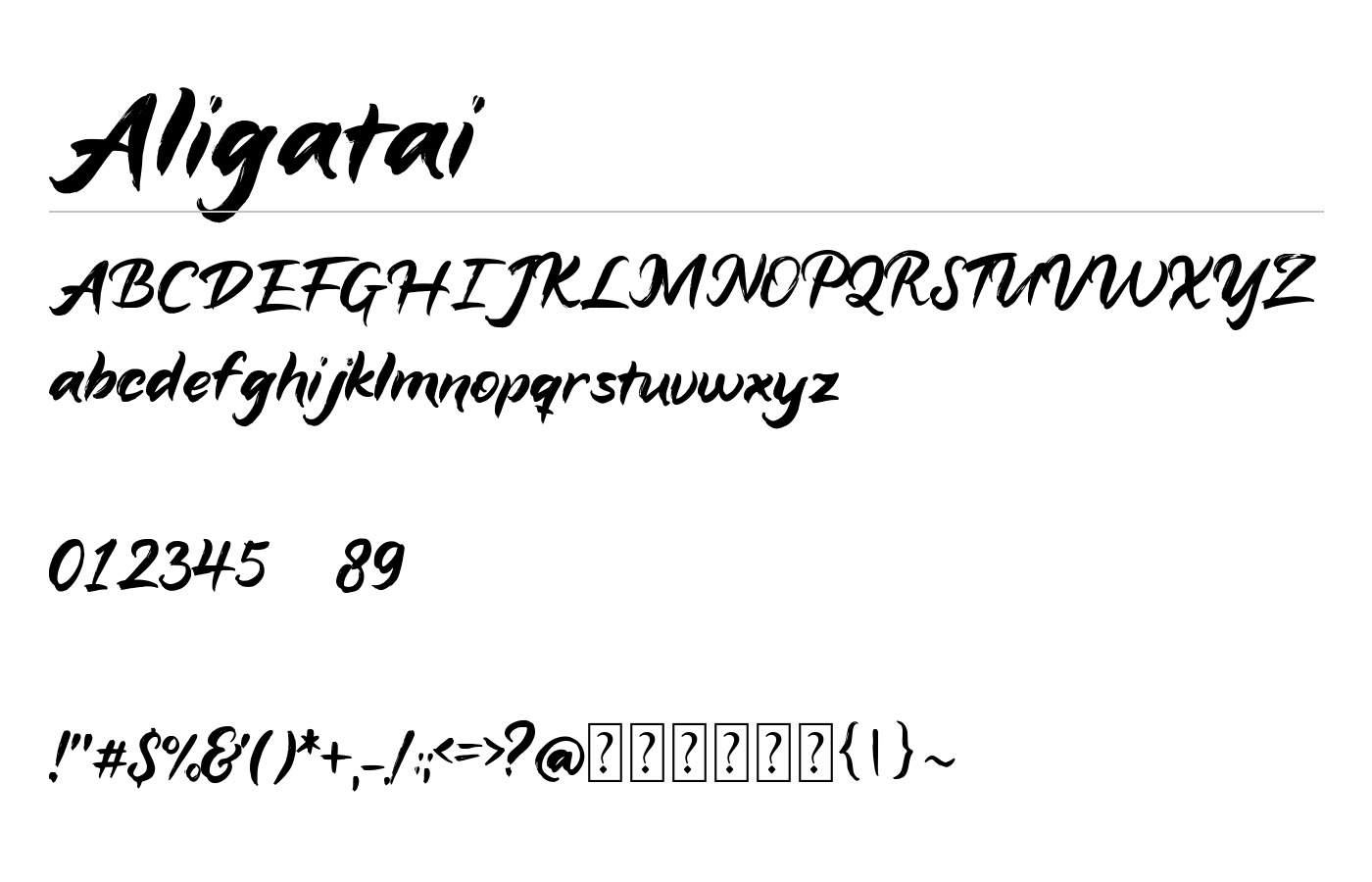
Aligatai is a lively brush script font with a bold, textured stroke that gives it a hand-painted feel. Its slightly condensed letterforms and dynamic flow make it perfect for creative and casual designs, lending a sense of personality and artistic flair. This font works well for logos, invitations, and headlines where a natural, expressive touch is desired.
Aligatai Font
About Aligatai Font
| Font family | Aligatai Font |